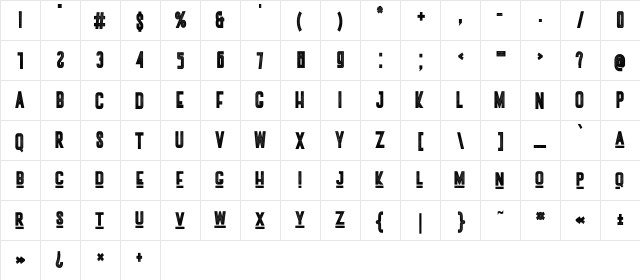
Nozty Condensed
| Foundry | Vasgaz Creative // Randi ilhamsyah |
| Designer | Randi Ilhamsyah |
Design Context for Nozty Typeface
Nozty offers clean, dependable letterforms without strong stylistic allegiance, making it a practical choice for designers who need flexibility. The condensed width makes it efficient for tight spaces without sacrificing legibility.
Pro Tip: Pair Nozty with a font of contrasting weight or personality to build a more expressive typographic hierarchy.